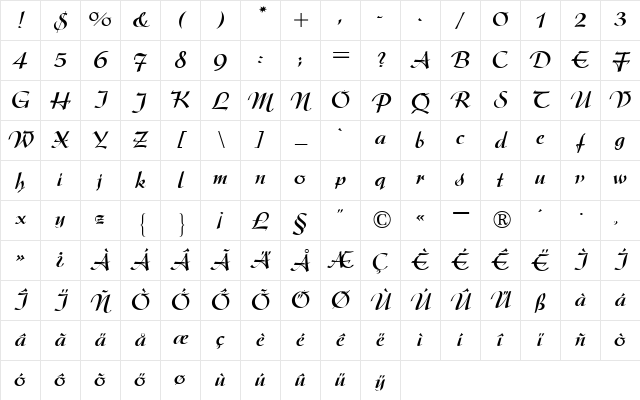
Complete Arkona Bold glyph index. Displaying only characters natively supported by Arkona Bold font.
Arkona is a composed and adaptable typeface that performs quietly and consistently across a wide range of design contexts. Its bold stroke weight gives it real presence on the page.
Pro Tip: Use Arkona in both headline and body roles to test its range before committing to a single application.